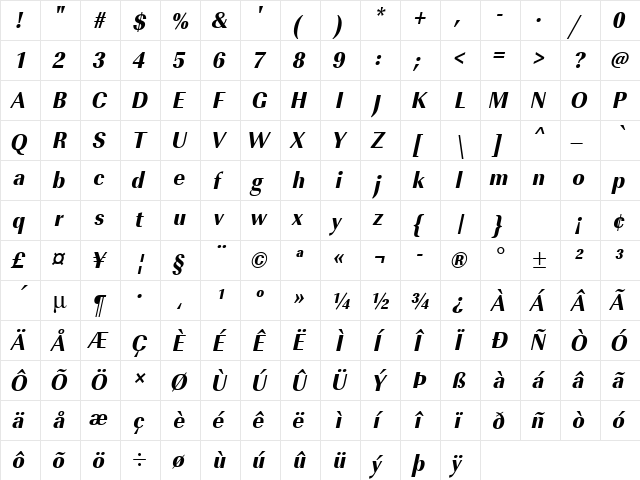
URWImperialTExtBolExtNar Oblique
Design Context for URWImperialTExtBolExtNar Typeface
URWImperialTExtBolExtNar takes a measured approach to typography — its balanced proportions and neutral character make it a reliable workhorse for both digital and print work. Its italic angle brings a sense of urgency and motion to the letterforms.
Pro Tip: Use URWImperialTExtBolExtNar for emphasis, pull quotes, and subheadings where its slanted energy can add rhythm to the layout.